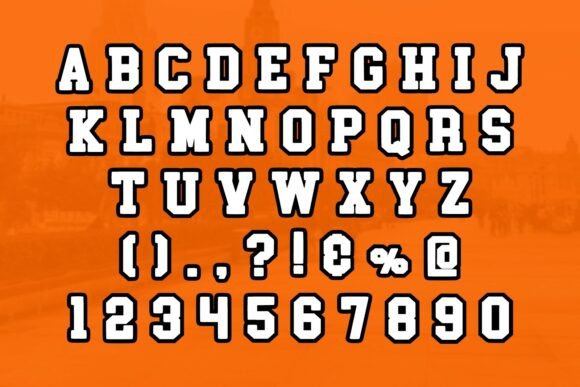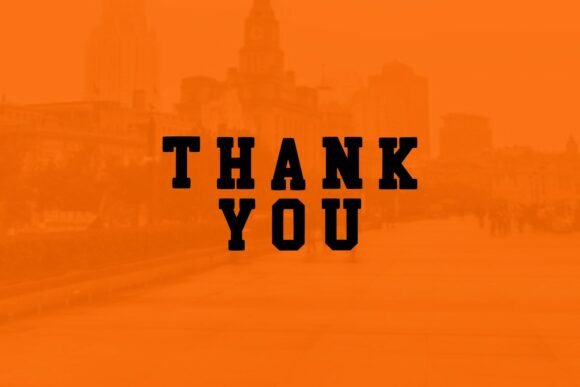
Introduction to School Come Back Font
Do you remember the rush of excitement when you first walked onto campus, surrounded by the vibrant energy of your school’s spirit? The School Come Back Font is a nostalgic nod to those unforgettable moments, capturing the essence of classic collegiate lettering in a bold, varsity-style display font.
As a designer, you’re always on the lookout for that special something to elevate your creative project. The School Come Back Font is a valuable addition to your design resource arsenal, offering a high-quality, sporty academic feel that’s perfect for school-themed designs, team branding, and merchandise. With its strong block shapes and transparent background, this font is ready to be used on any project that needs a confident and timeless campus aesthetic.
Key Features of School Come Back Font
- High-quality design resource with a unique and playful style, perfect for creative projects.
- Transparent background, allowing for easy customization and flexibility in design.
- Designed to be highly legible and readable, making it ideal for use in a variety of contexts.
- Includes a range of glyphs and characters, including uppercase and lowercase letters, numbers, and punctuation.
Honest Review: School Come Back Font
As a designer, I’m always on the lookout for high-quality design resources to elevate my creative projects. Recently, I stumbled upon the School Come Back Font, and I’m excited to share my honest review.
Some limitations: ⚠️ While the font is free, it’s not as versatile as some other fonts I’ve used. The style is quite specific, and it may not be the best choice for projects that require a more neutral or traditional font.
Overall, I think the School Come Back Font is a solid addition to any designer’s toolkit. While it may not be the most versatile font, it’s a great choice for projects that require a fun, playful vibe. Just be sure to use it in the right context to get the most out of it.
To get the most out of the School Come Back Font, use it in creative ways such as:
- Creating eye-catching headings and titles
- Designing educational materials and resources
- Developing branding and marketing materials
The School Come Back Font is commonly used in:
- Education and learning materials
- Branding and marketing campaigns
- Creative projects and designs